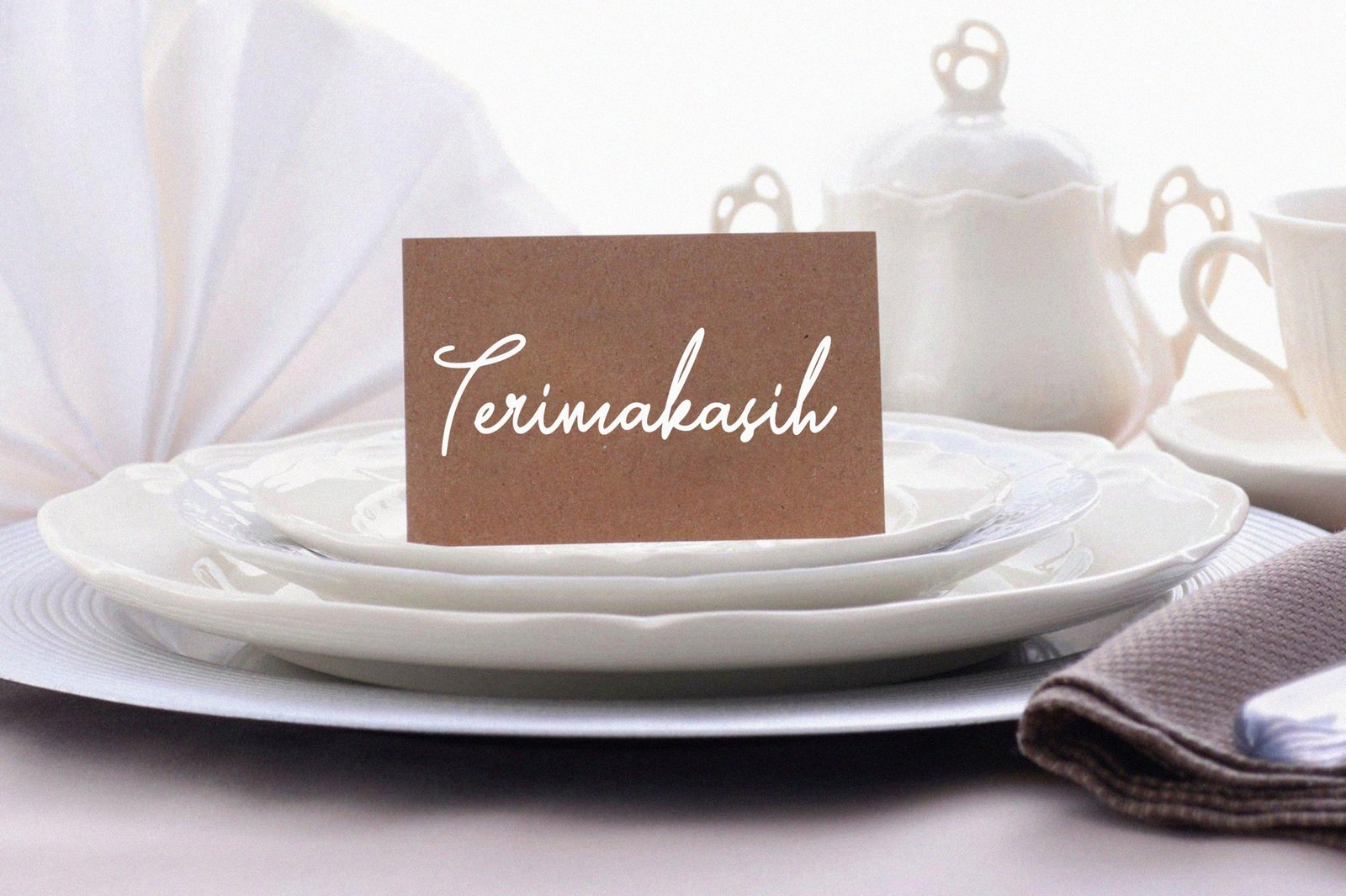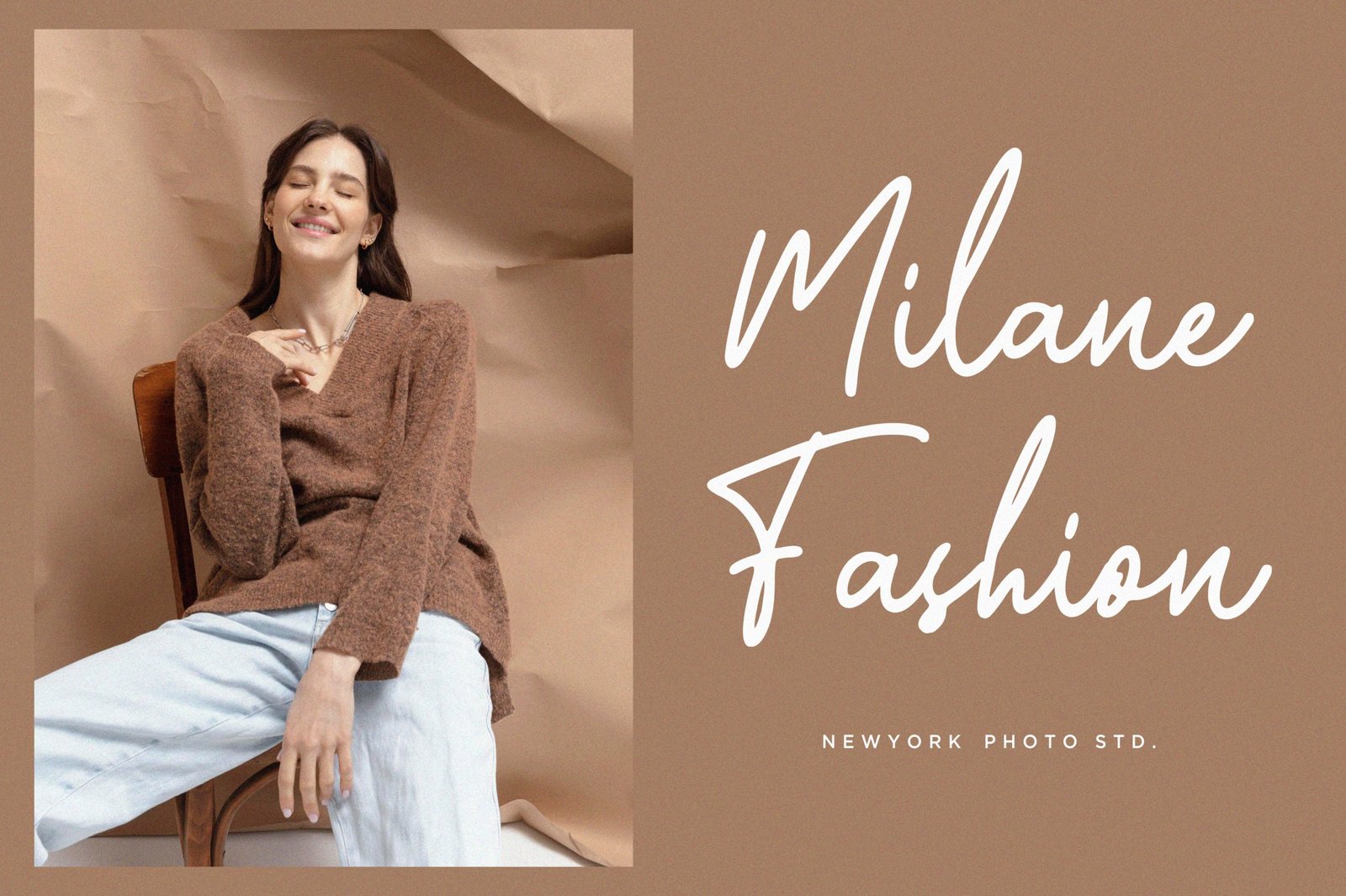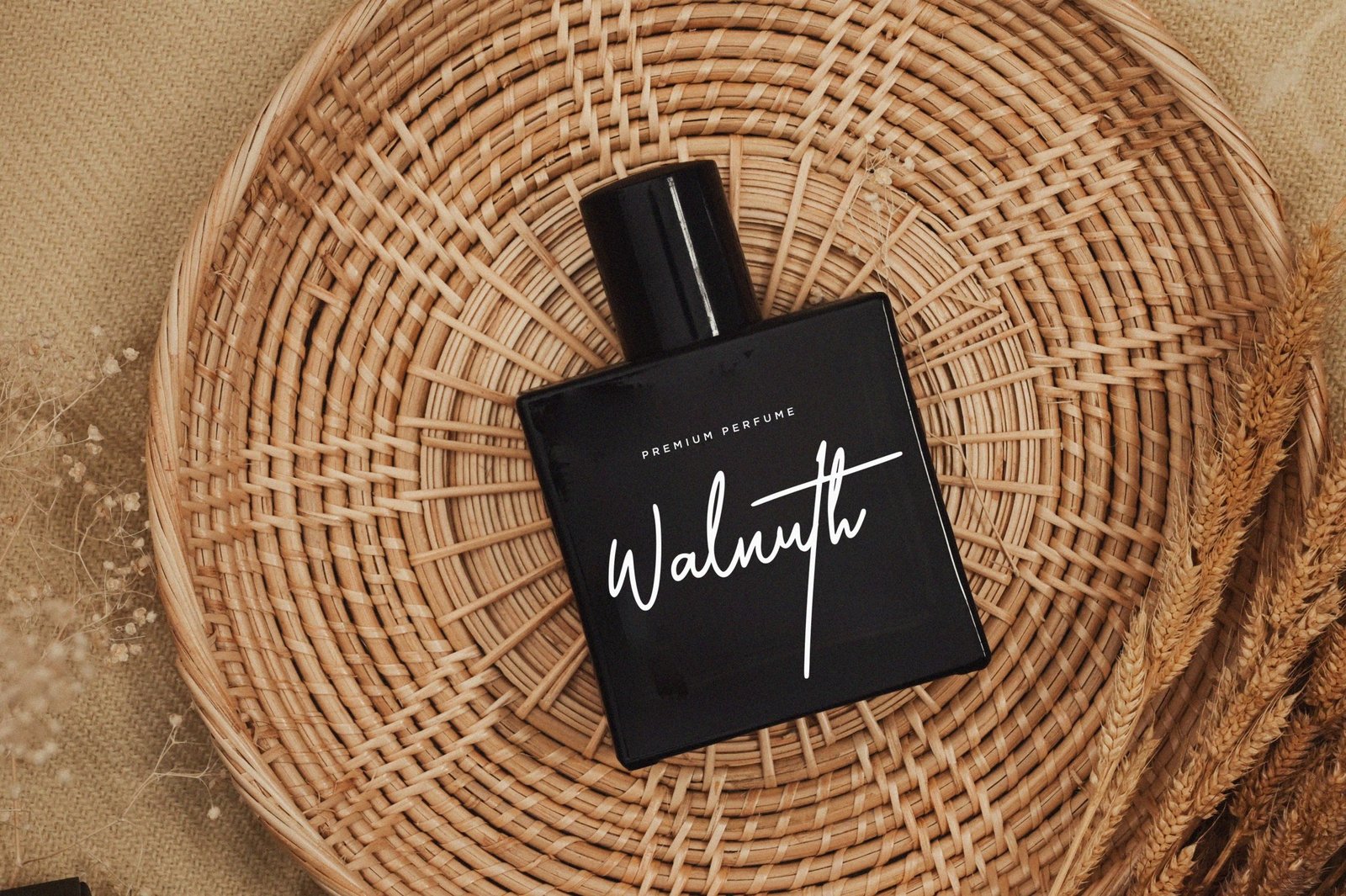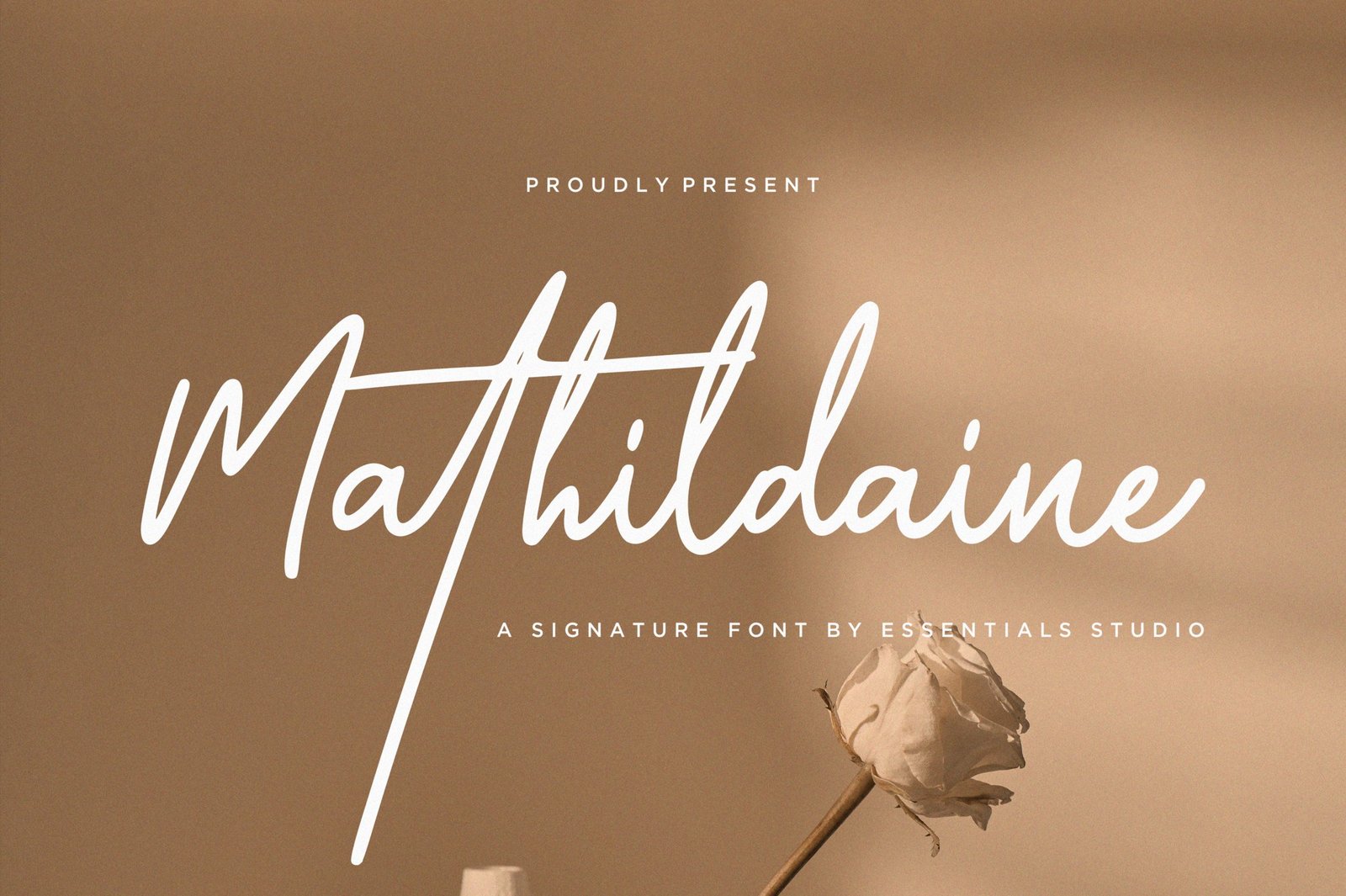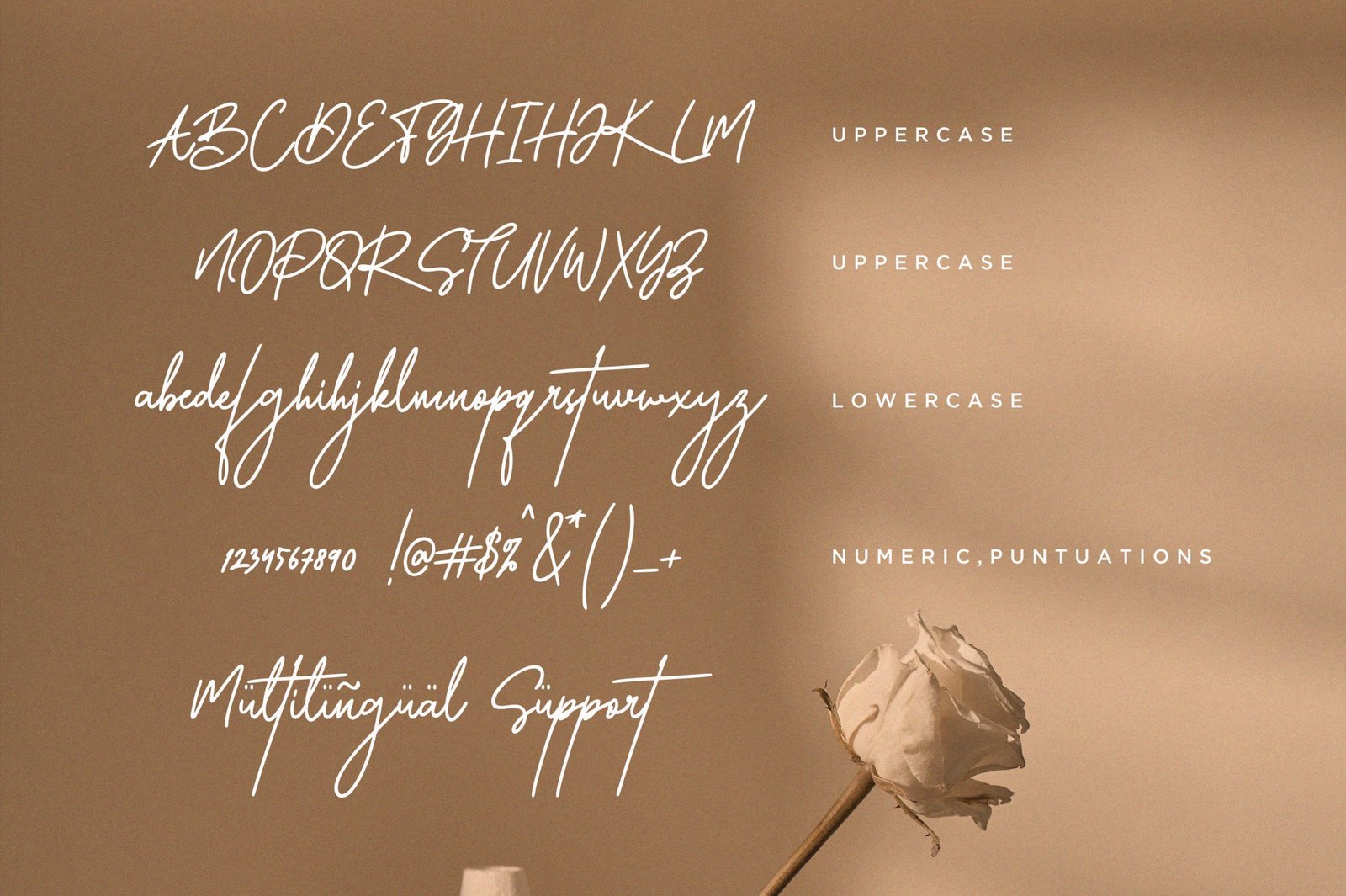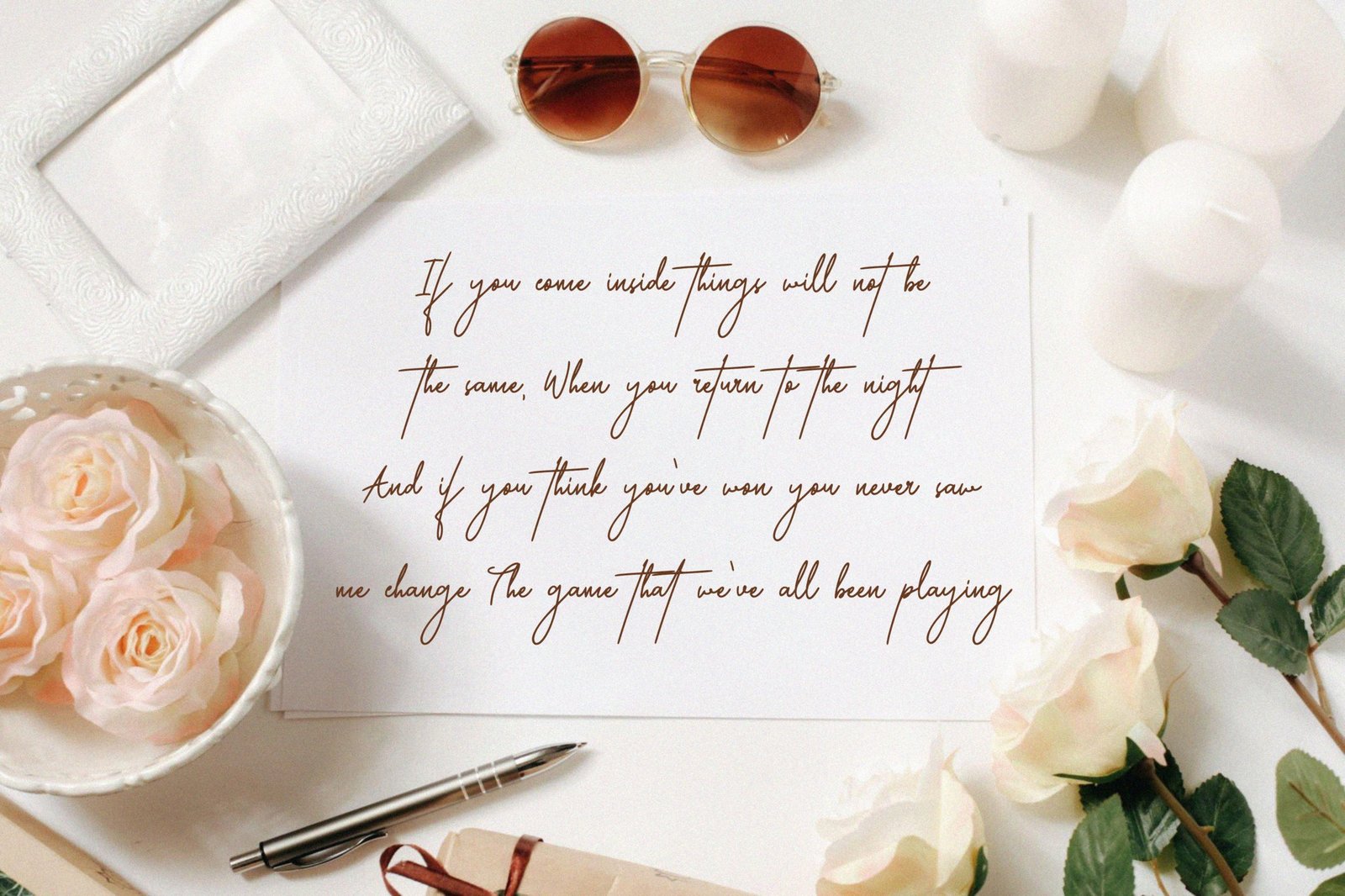
Mathildaine - Luxury Signature Font
Mathildaine Is a luxury signature font. It is perfect for product packaging, branding project, magazines, social media, weddings, or just used to express words above the background.